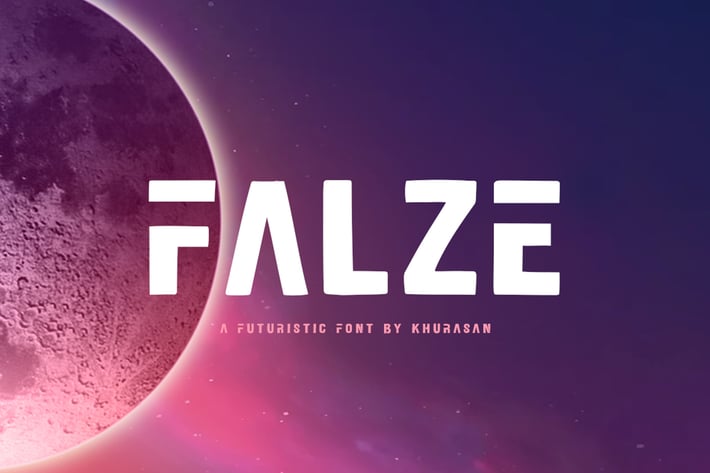
Falze - Futuristic Logo Font
Introducing, Falze is a unique and futuristic sans-based font that makes your designs more modern. The Falze font is also perfect for creating modern logos and logos, branding, greeting cards, branding, posters and any design you create.